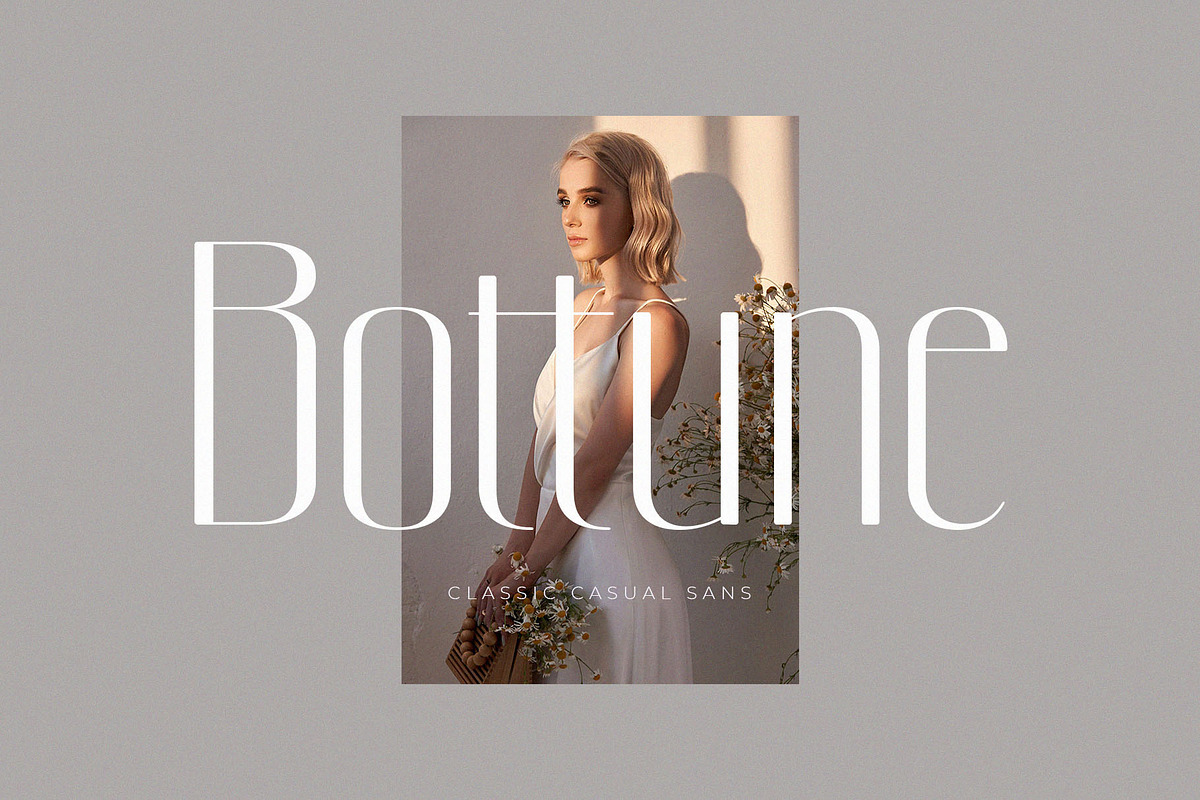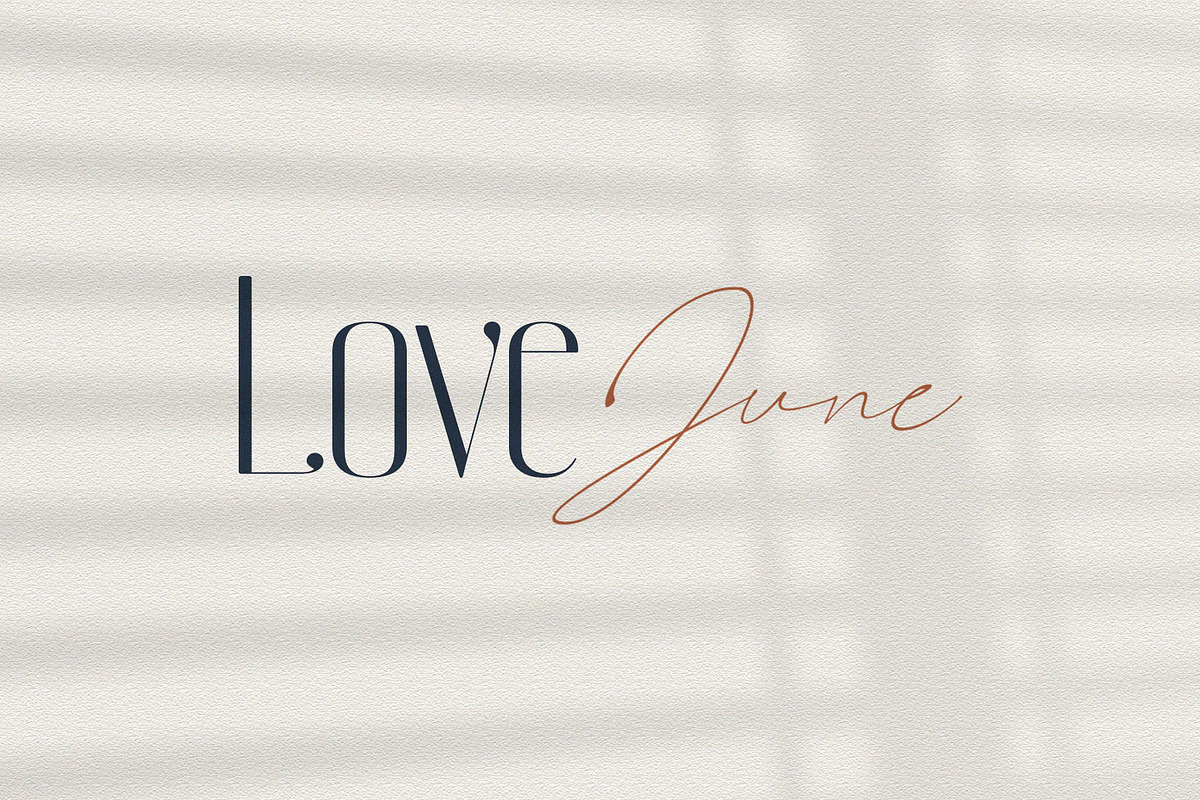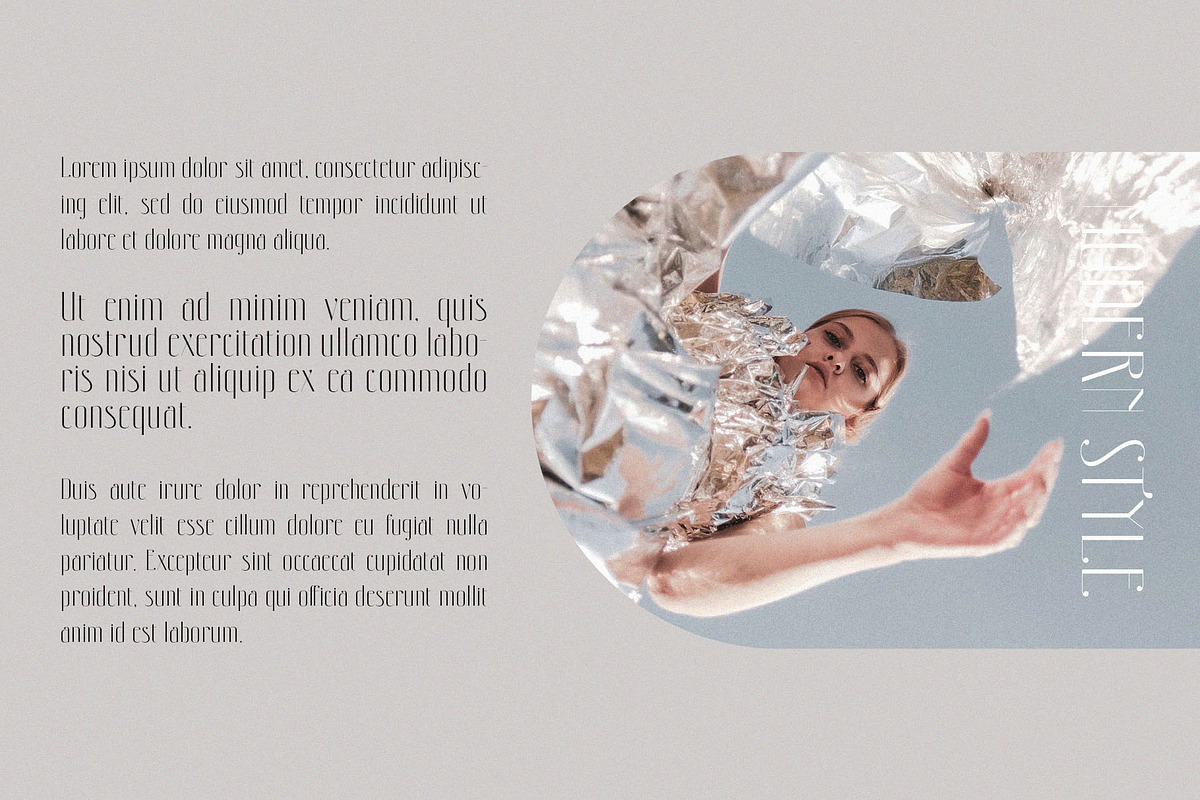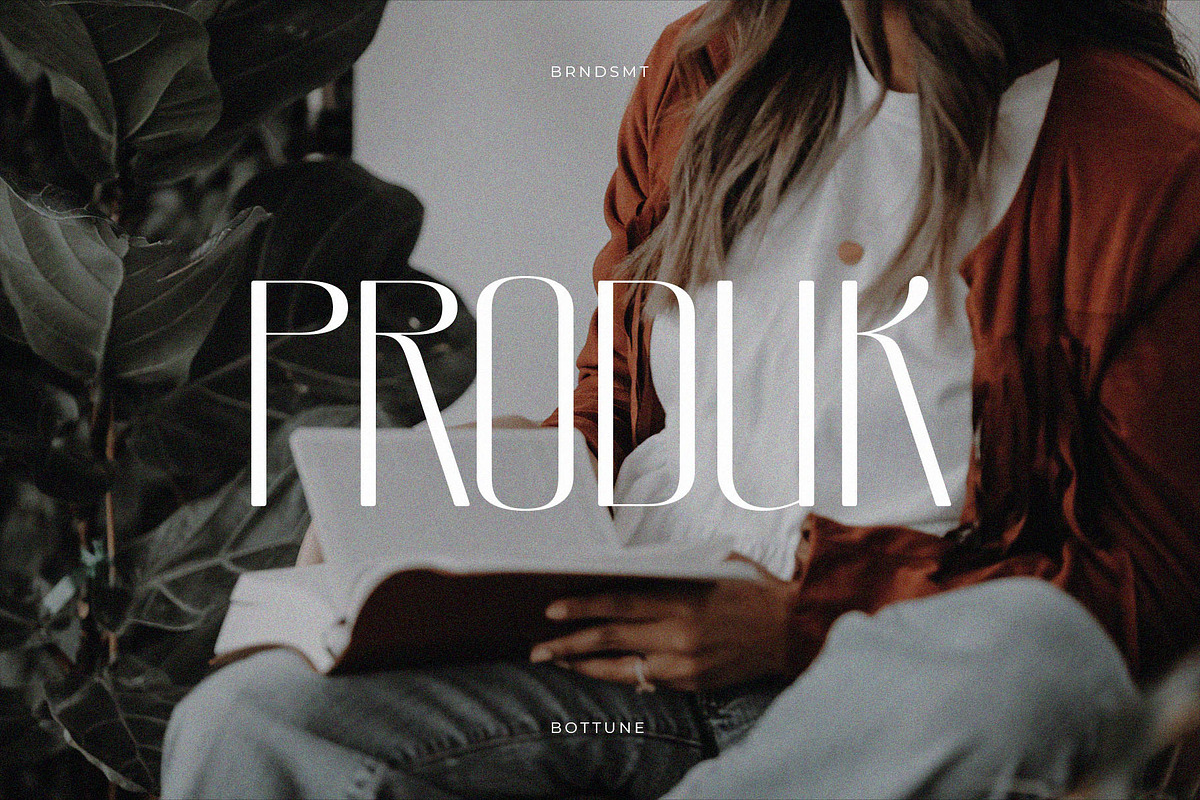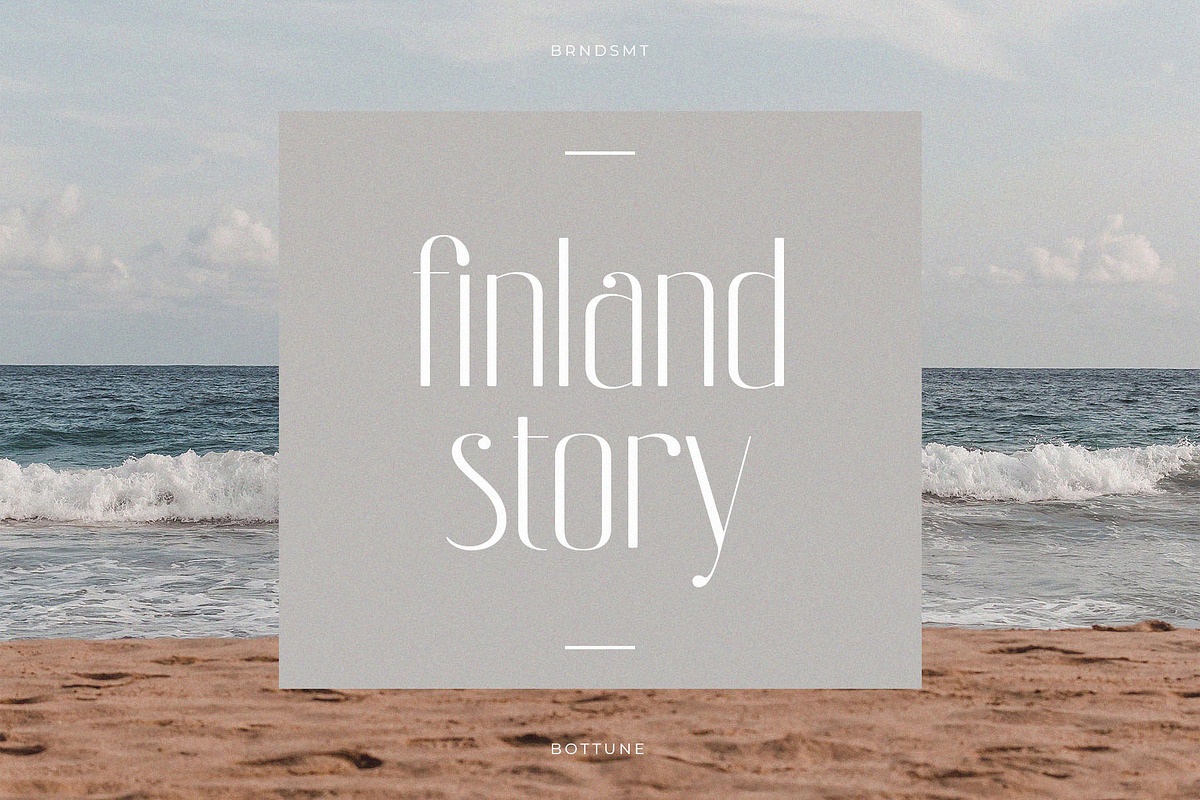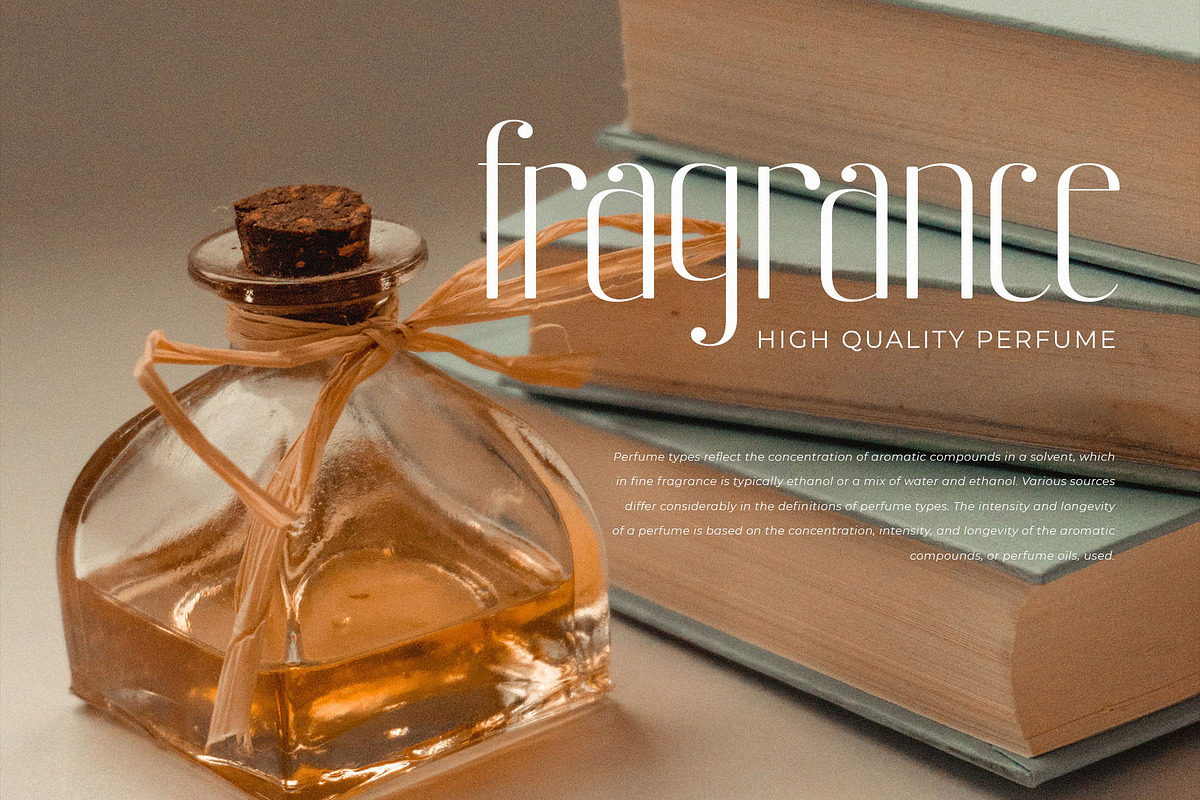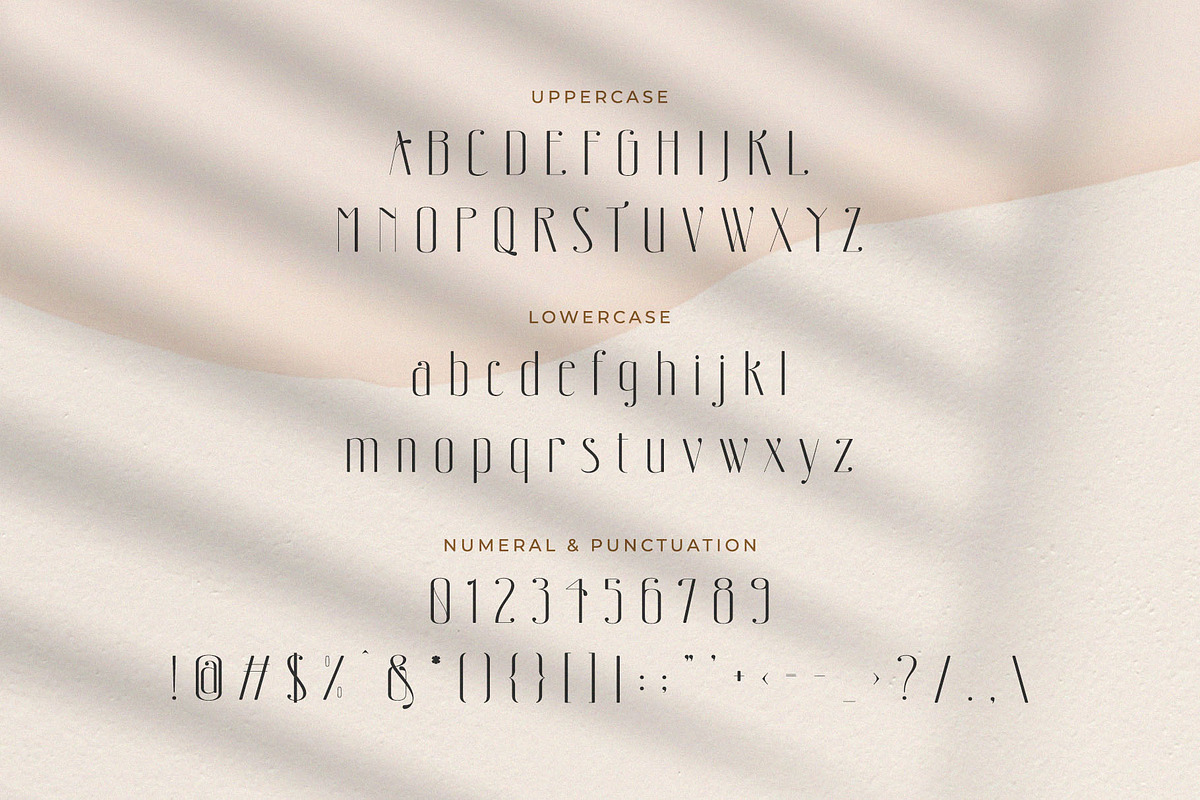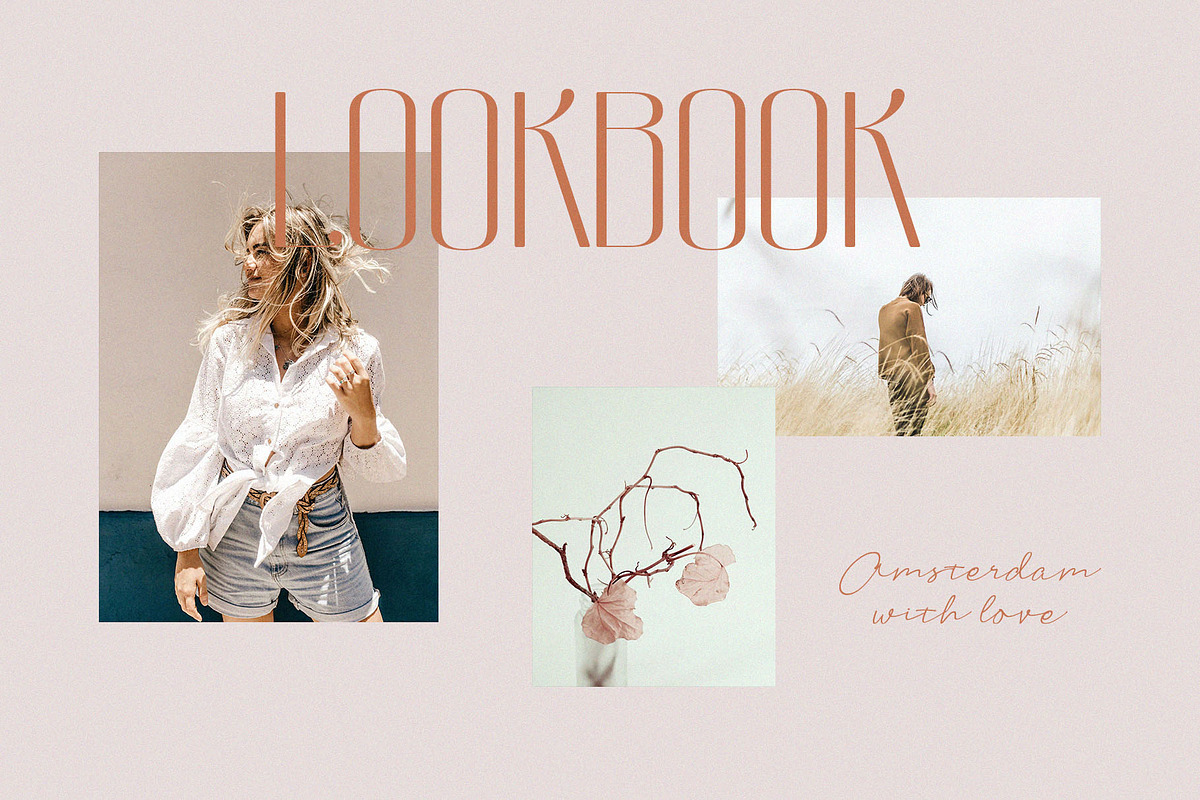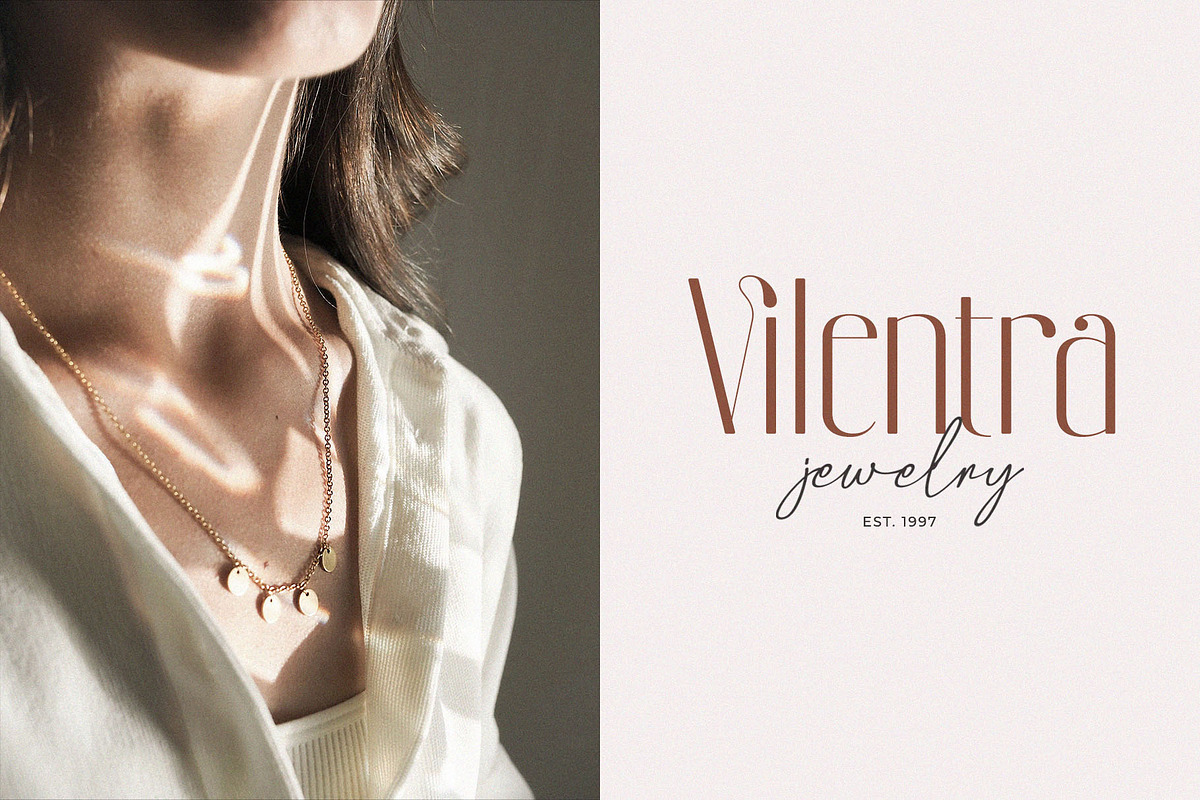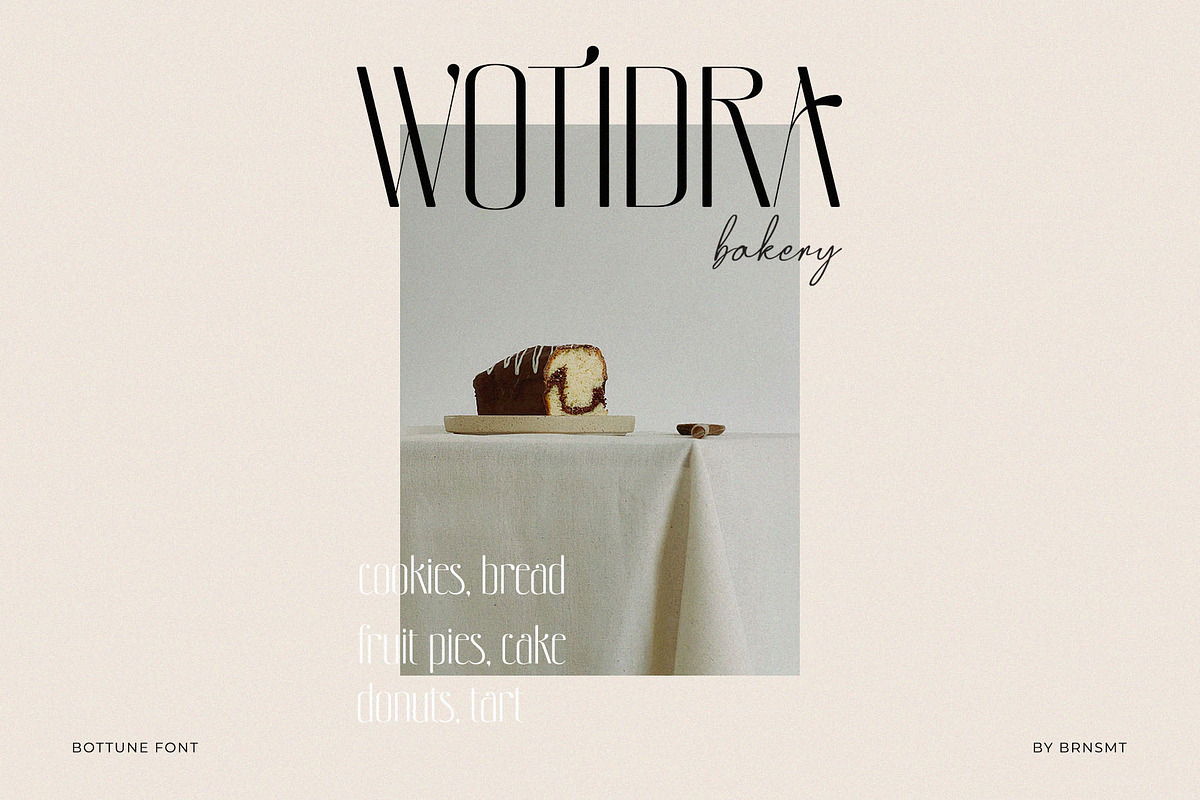
Bottune – Classic Casual Sans Serif
Introducing Bottune. Bottune is a classic and casual typeface, best used as a display for headings, logos, branding, magazines, product packaging and invitations. Bottune come with clean lines and smooth curves give any project an extra touch of class.